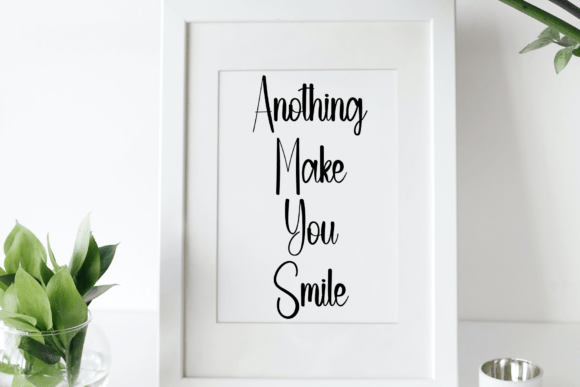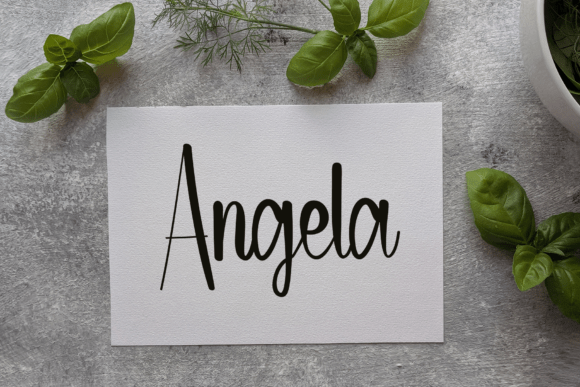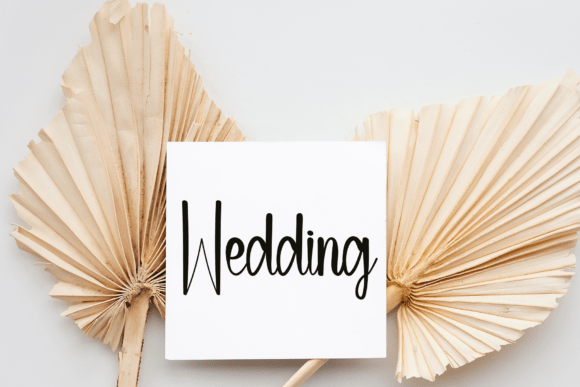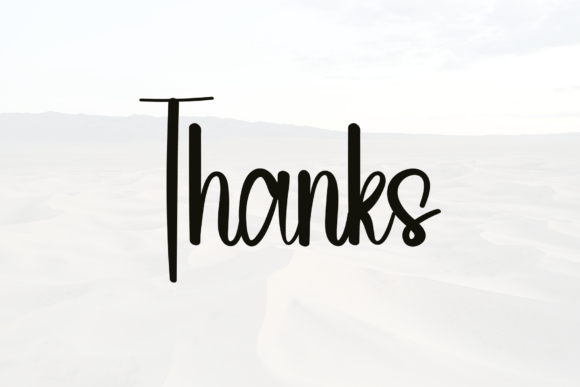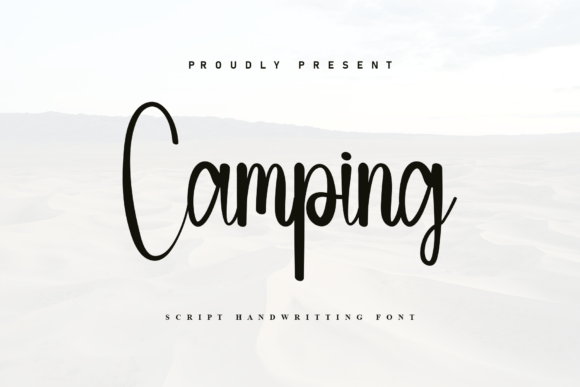
Camping Font: The Perfect Choice for Designers and Crafters
Are you looking for a font that can add a touch of casual elegance to your designs? Look no further than Camping Font, a handwritten font that looks like it was drawn with a marker. With its relaxed and sporty feel, Camping Font is perfect for a wide range of design projects, from branding and logos to wedding supplies and greeting cards.
The Characteristics of Camping Font
Camping Font is a unique and versatile font that is characterized by its handwritten, marker-drawn feel. The font has a relaxed and sporty vibe, making it perfect for designs that require a casual and laid-back look. The letters are fluid and smooth, with a subtle texture that gives the font a organic and hand-crafted feel.
Uses for Camping Font
Camping Font is an incredibly versatile font that can be used for a wide range of design projects. Here are some ideas to get you started:
- Branding and Logos: Use Camping Font to create a unique and memorable logo for your brand. The font’s relaxed and sporty feel makes it perfect for outdoor and lifestyle brands.
- Wedding Supplies: Add a touch of casual elegance to your wedding supplies, such as invitations, programs, and place cards, with Camping Font.
- Greeting Cards: Use Camping Font to create beautiful and heartfelt greeting cards for any occasion.
- Fashion and Lookbooks: Camping Font is perfect for fashion designers and stylists who want to add a touch of casual chic to their lookbooks and marketing materials.
- Marketing Promotions: Use Camping Font to create eye-catching marketing promotions, such as flyers, brochures, and posters.
Why Choose Camping Font?
So why choose Camping Font for your design projects? Here are just a few reasons:
- Unique and Versatile: Camping Font is a one-of-a-kind font that can be used for a wide range of design projects.
- Easy to Read: The font is clear and easy to read, making it perfect for body text and headlines.
- Casual and Elegant: Camping Font has a unique blend of casual and elegant characteristics, making it perfect for designs that require a touch of sophistication.
Tips for Using Camping Font
Here are a few tips for using Camping Font in your design projects:
- Pair with Other Fonts: Camping Font pairs well with other fonts, such as sans-serif fonts and script fonts. Experiment with different font combinations to find the perfect look for your design.
- Use for Headlines and Body Text: Camping Font is perfect for both headlines and body text. Use it to create eye-catching headlines and easy-to-read body text.
- Experiment with Colors: Camping Font looks great in a variety of colors. Experiment with different colors and textures to find the perfect look for your design.
Camping Font is a unique and versatile font that is perfect for designers and crafters who want to add a touch of casual elegance to their designs. With its relaxed and sporty feel, Camping Font is perfect for a wide range of design projects, from branding and logos to wedding supplies and greeting cards. Whether you’re a seasoned designer or just starting out, Camping Font is a great choice for any design project.